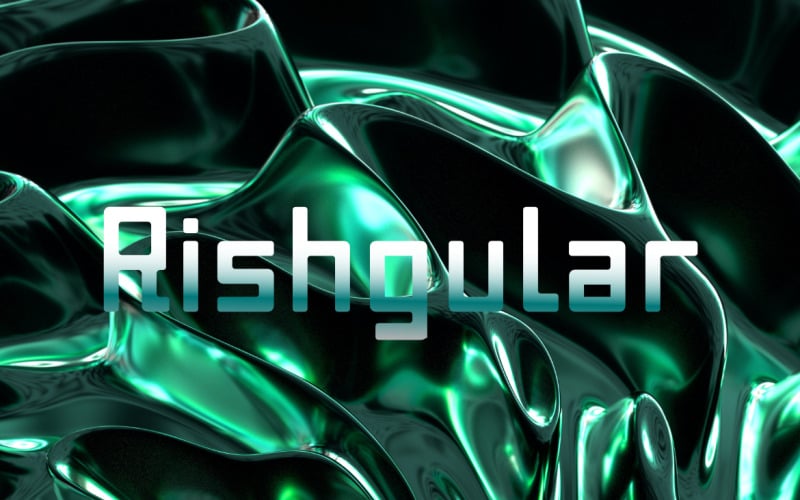
Rishgular Unique Sans Serif Font
rishgular is modern sans serif display font. This font is suitable for designs such as t-shirts, sportswear, logos, advertisements, clothing, and more.